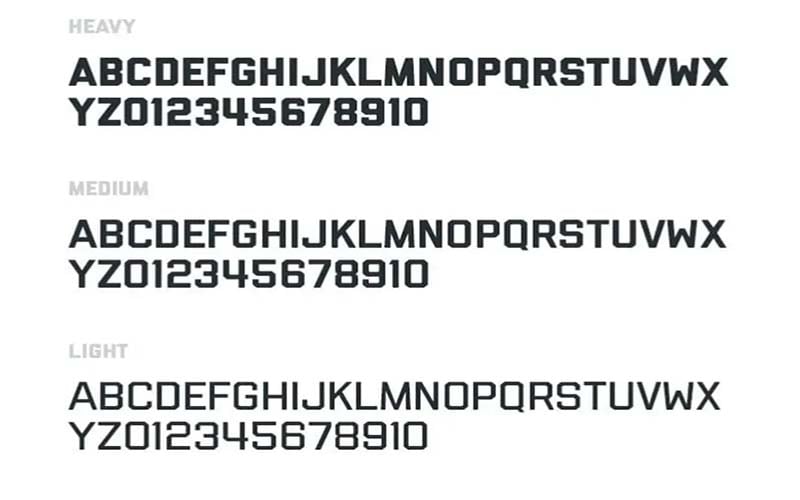
Liberator Font is a great display and sans-serif typeface that has a clear and bold texture. Ryan Clark is the primary designer of this font designed in 2011 for the first time.
This font contains five different styles including Liberator Regular, Liberator Italic, Liberator Bold, Liberator Medium, and Liberator Heavy that give a mysterious touch to any type of design.
You can use this typeface for creating headlines, titles, T-shirt designs, banner designs, reports, articles, post descriptions, website headers and footers, Assignments, notes, shop names, and many more.
Liberator Font
| Style: | Sans serif, Display, Typeface |
| Font Designer: | Ryan Clark |